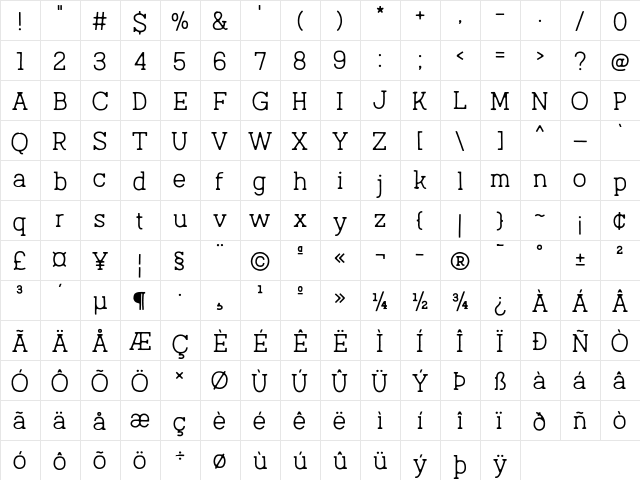
Austral Slab Blur Light
Design Context for Austral Slab Typeface
Austral Slab combines the readability of serif typography with the visual weight of a slab construction, resulting in a typeface that feels both authoritative and approachable. Its slender proportions lend an understated elegance to any composition.
Suited to magazines, political campaign materials, bold packaging, and any setting where authority matters.
Pro Tip: Use Austral Slab for headlines and subheadings where its slab serifs can make an impression. It also holds up well in mid-size body copy thanks to its sturdy construction.